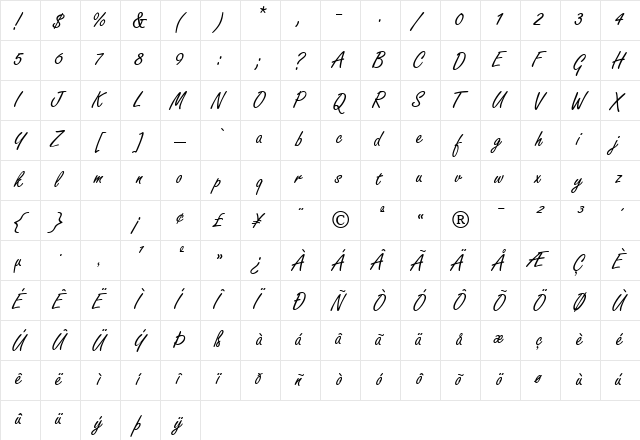
GE NanoTech Script Normal
Design Context for GE NanoTech Script Typeface
GE NanoTech Script channels digital-age aesthetics through its sharp, structured letterforms — ideal for brands that want to signal innovation.
Pro Tip: Use GE NanoTech Script in combination with a neutral sans for body text. Let it define the brand voice in headlines while keeping reading comfortable elsewhere.